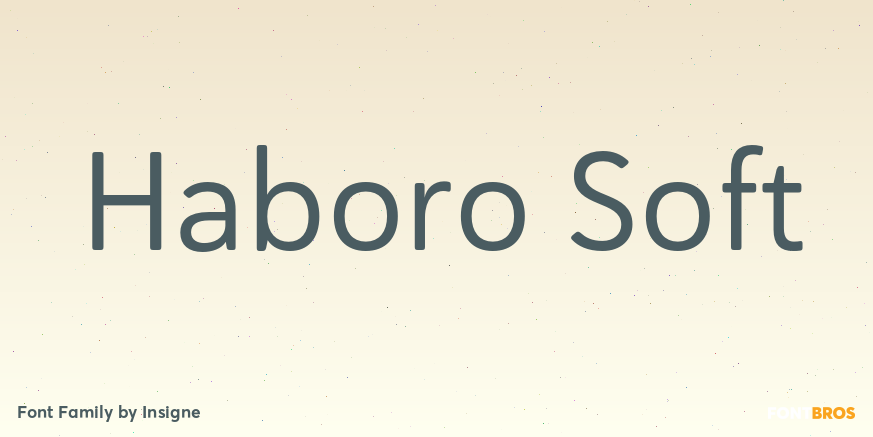
Haboro Soft
About Haboro Soft
Stop trekking through the thick, wintery font forest, and step lightly into the fresh life of the Haboro hyperfamily. Though simple in nature, the Haboro hyperfamily provides you with a variety of options. Take, for instance, Haboro Soft, the latest…